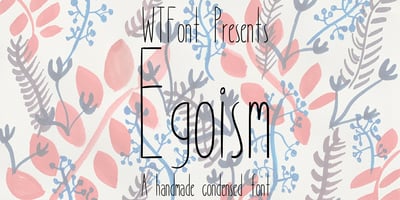
Egoism
Egoism font
Egoism Font Family was designed by Rupal Hira and published by WTFont. Egoism contains 1 styles and family package options. Presenting a proud and tall font! The ability to express emotion through typography is one that is very much needed. Thus, the idea of emotional typography to communicate feelings was born. The emotion of Egoism is primarily one that is self serving and personal. While appearing to be deceptively simple, it is designed to have a handmade effect. The center point of the letters has been raised, giving the letters and glyphs a taller appearance. This reflects the feeling of having an inflated Ego. The handmade aspect of this font is what makes it great for giving any design a personal touch. Pair it with a bold Sans Serif font which also has a hand made appearance. Create designs with this Egoism font that enhances your hand made looking pieces!